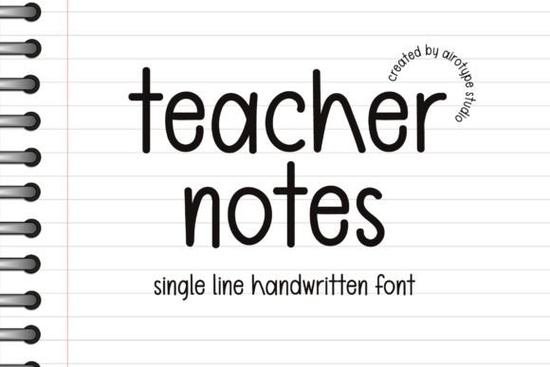
If you’ve been searching for a handwritten font that feels personal, playful, and just the right amount of casual, you might want to take a closer look at Teacher Notes Font. It’s got that single-line simplicity that makes it feel like real handwriting the kind you’d find scribbled in the margins of a planner or on a sticky note left on a classroom desk. Whether you’re designing back-to-school printables, birthday invites, summer-themed merch, or even sublimation stickers, this font adds charm without overwhelming your layout.
What sets Teacher Notes apart is how effortlessly it blends into projects that need personality but not clutter. The strokes are light, friendly, and consistent perfect if you’re crafting for teachers, parents, students, or anyone who loves that “handwritten with love” vibe. You’ll find it especially useful if you’ve tried fonts like Genty or Overthinking but wanted something even more minimal and breezy.
What kinds of projects work best with Teacher Notes?
This font shines when used in designs that call for warmth and approachability. Think:
- Back-to-school printables planners, labels, classroom posters, teacher appreciation cards
- Birthday invitations especially for kids or casual celebrations
- Summer camp flyers or beach party signs anything with sunshine and sand vibes
- T-shirts and tote bags great for short phrases like “Coffee & Crayons” or “Summer Mode: ON”
- Stickers and sublimation transfers the thin line style holds up well when scaled down
It also pairs beautifully with bolder display fonts or clean sans-serifs. Try combining it with something like Studying for contrast use Studying for headlines and Teacher Notes for supporting text. Or layer it with The Matcha Club if you’re going for that cozy, artsy aesthetic.
Is it easy to use for beginners?
You don’t need advanced typography skills to make it look good. Just pick your size, maybe add a little letter spacing if you want it to breathe, and you’re set. For crafters working with heat transfer vinyl or sublimation printers, the single-line structure means fewer cut errors and cleaner transfers.
How does it compare to other handwritten fonts?
Unlike some script fonts that try to mimic cursive with flourishes and swashes, Teacher Notes keeps things grounded. It’s more like the handwriting you actually see in daily life quick, legible, and unpretentious. If you’ve ever used Teacher Notes Font, you know it doesn’t fight for attention. It supports your message instead of stealing the show.
Fonts like Teacher Notes are becoming popular again because people crave authenticity in design. In a world full of polished vector graphics and AI-generated art, there’s something comforting about type that looks human-made slightly imperfect, totally relatable.
Any tips for getting the most out of this font?
Here are a few practical ideas:
- Use it for quotes or short phrases longer paragraphs can feel visually light, so keep blocks of text minimal.
- Pair with textured backgrounds chalkboard, kraft paper, or watercolor textures enhance its handmade feel.
- Add subtle shadows or outlines helps it pop on busy or colorful designs.
- Try all-caps for titles surprisingly crisp and modern, despite the casual base style.
If you’re creating products for sale say, printable wall art or teacher bundles consider offering variations: one version with Teacher Notes for the quote, another with a complementary font for context. Customers love options that feel curated, not chaotic.